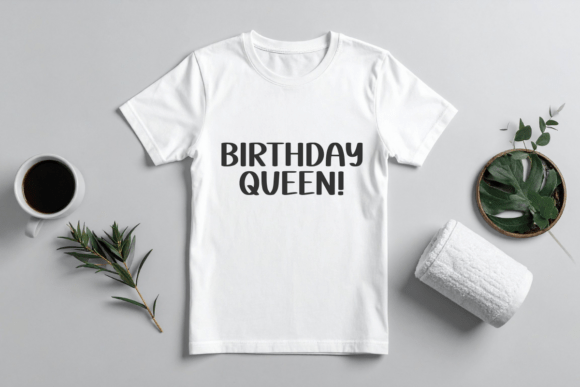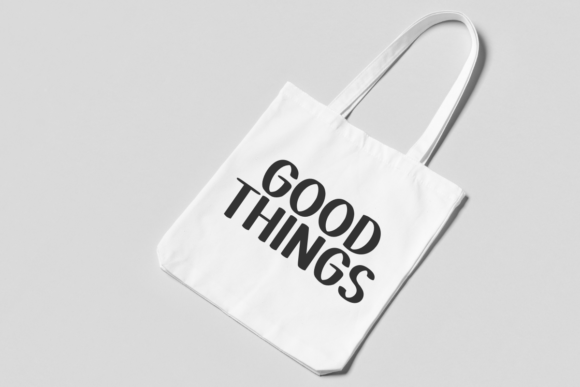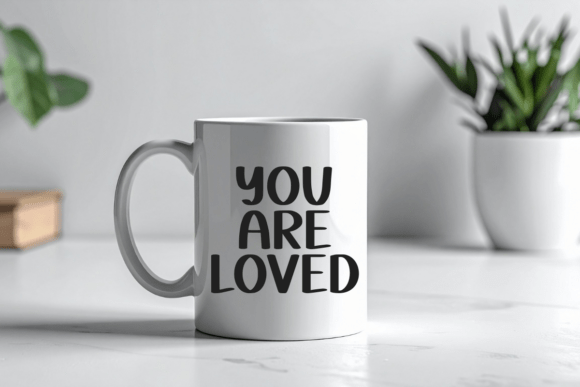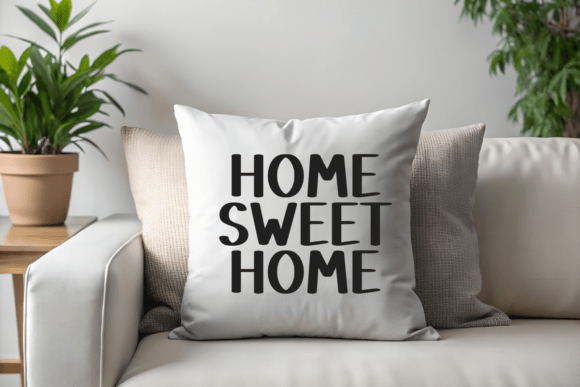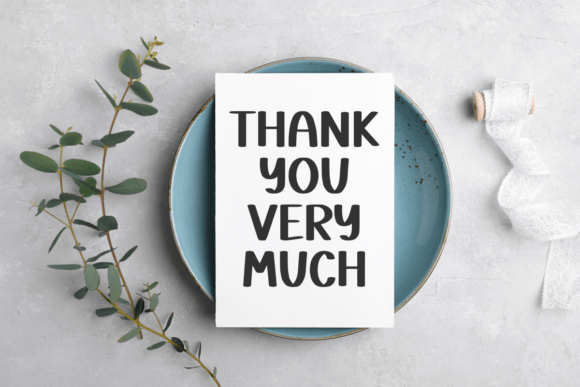
Introduction to Golden Notes Font Font
Fonts play a crucial role in design, and the Golden Notes Font font is a typeface that brings both character and versatility to any project. Whether you’re working on a branding project, a website, or a print design, the Golden Notes Font font offers a unique style that can elevate your work.
Golden Notes is a sassy and sarcastic handwritten font inspired by natural handwriting.
With its rounded and friendly look, this font is perfect for journals, planners, notes, sticky notes, KDP interiors, and Canva templates You can also use it for birthday and baby shower designs, greeting cards, stickers, diaries, tumblers, sublimation projects, DIY crafts, and many more creative projects that need a fun and adorable touch.
Key Features of Golden Notes Font Font
Why Choose Golden Notes Font Font?
The Golden Notes Font font is more than just a typeface – it’s a design tool that helps you communicate your message with style and clarity. Its unique character set and versatile design make it suitable for a wide range of applications, from elegant invitations to bold headlines.
With its carefully crafted letterforms and balanced proportions, the Golden Notes Font font ensures readability and visual appeal across all mediums.
What makes Golden Notes Font font special?
The Golden Notes Font font stands out with its unique design, exceptional readability, and versatility across various design applications.